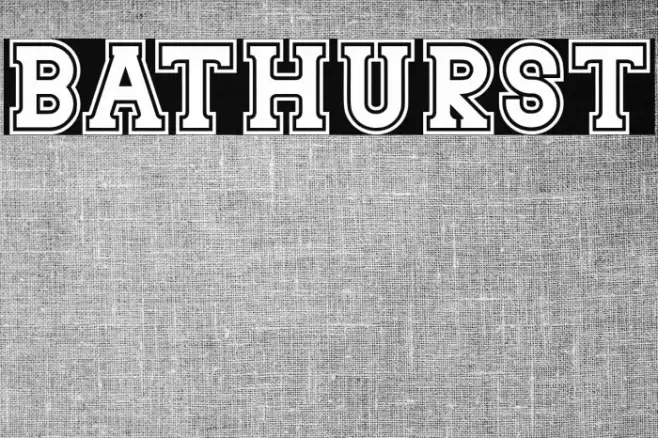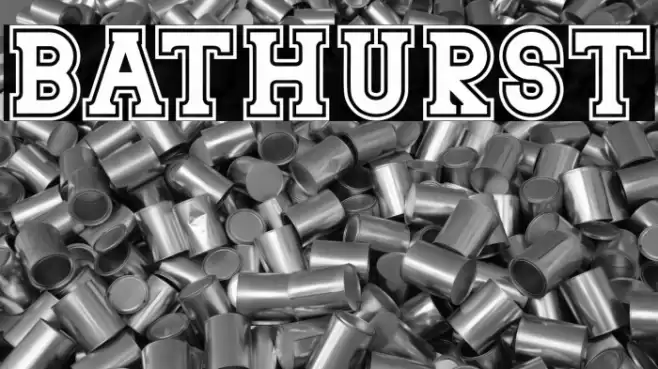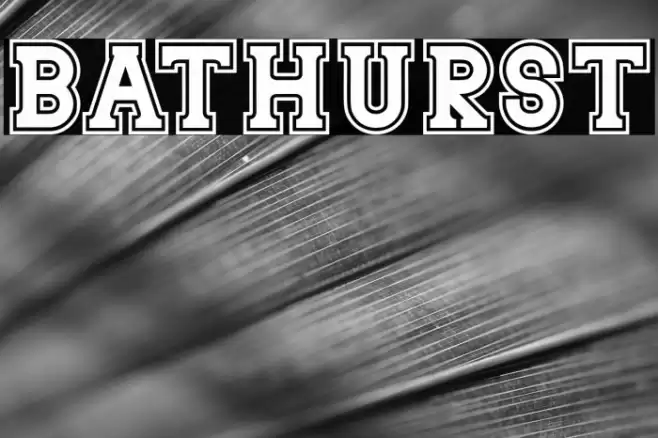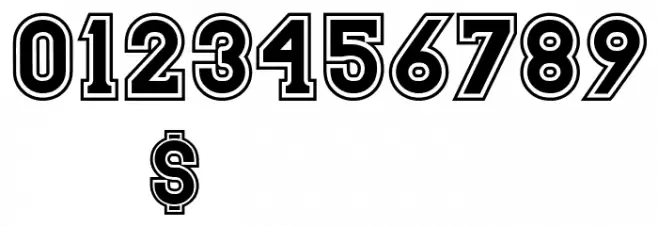
Bathurst Font
Bathurst Description
This font features a bold, decorative style with a strong presence. Each character is outlined, giving it a three-dimensional effect that stands out. The uppercase letters are robust and commanding, while the numbers maintain a consistent style, ensuring uniformity across different uses. The special characters are designed to complement the overall aesthetic, making them suitable for various design needs. The font's boldness and unique outline make it ideal for eye-catching headlines and display purposes.
A bold, outlined decorative font with a strong, three-dimensional effect from Regular fonts.
- Proposed Projects: Ideal for posters, signage, branding, and any project requiring a bold, attention-grabbing typeface.